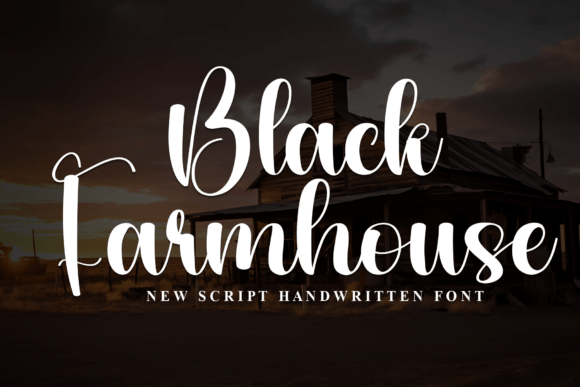
The Charming Black Farmhouse Font: Elevate Your Designs with Whimsy and Warmth
Have you ever been in the midst of crafting a beautiful wedding invitation or a heartfelt card, only to find that the font you’re using just doesn’t capture the essence of the occasion? I recall a particularly frustrating design session where I was struggling to find the perfect typeface for a client’s rustic-chic wedding invitation. That’s when I stumbled upon the delightful Black Farmhouse Font. Its charmingly sweet and amiable handwritten display style breathed life into my design, and I knew I had found the perfect fit.
- ✅ Unique and Playful Style: Black Farmhouse Font boasts a quaint and playful vibe that’s perfect for adding a whimsical touch to your designs.
- ✅ Easy Readability: Despite its decorative nature, this font remains highly readable, making it suitable for both headings and body text.
- ✅ Emotional Connection: The font’s warm and inviting style helps create an emotional connection with your audience, ensuring your project leaves a lasting impression.
- ✅ Aesthetic Appeal: The elegant, flowing lines of Black Farmhouse Font are sure to dazzle and make your designs stand out.
- ⚠️ Limited Formality: Due to its playful nature, Black Farmhouse Font might not be the best choice for highly formal or corporate projects.
- ⚠️ Overuse: As with any decorative font, using Black Farmhouse excessively can overwhelm your design; use it sparingly for maximum impact.
- Experiment with OpenType features, such as glyphs and stylistic alternates, to add more flair to your text.
- Take advantage of OpenType features, such as ligatures and swashes, to enhance your design.
The Story Behind Black Farmhouse Font
Black Farmhouse Font was inspired by the rustic charm of rural landscapes and the warmth of handwritten letters. Its creator aimed to craft a typeface that would evoke feelings of nostalgia and coziness, perfect for designs that require a personal touch. The font’s unique style and character are a testament to the power of handcrafted typography in modern design.
Q: What makes Black Farmhouse Font unique?
A: Black Farmhouse Font stands out due to its charmingly sweet and amiable handwritten display style, which adds a whimsical touch to any design.
Q: Is Black Farmhouse Font suitable for body text?
A: While Black Farmhouse Font is highly readable, it’s primarily designed for display purposes; consider using a more traditional font for extensive body text.